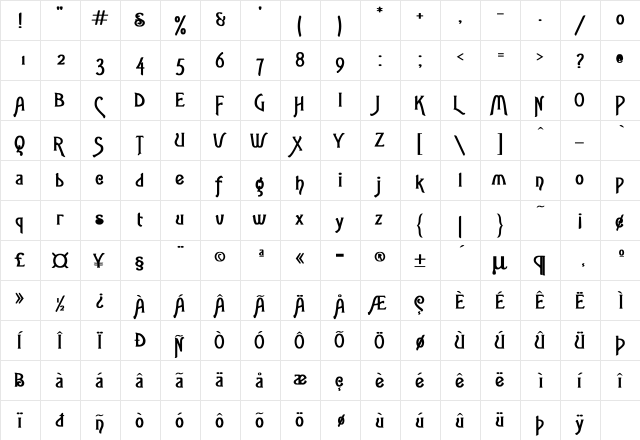
Articulate Bold
Design Context for Articulate Typeface
Articulate is a composed and adaptable typeface that performs quietly and consistently across a wide range of design contexts. The heavy weight commands attention and anchors typographic hierarchies.